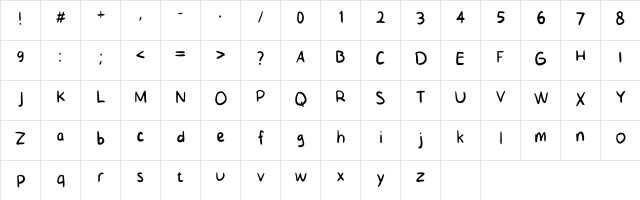
Kids Handwriting Regular
Design Context for Kids Handwriting Typeface
Kids Handwriting has an approachable, lighthearted character — its loose, expressive forms are well-suited to children's content, casual branding, and fun-first design.
Well-suited to food and beverage brands with personality, educational materials, and fun-forward identities.
Font Pairing: Pairs well with a rounded or humanist sans for body copy, maintaining the friendly tone without relying on Kids Handwriting to carry extended reading.
Pro Tip: Use Kids Handwriting at larger display sizes where its expressive character can land. Pair with a clean, simple sans for body copy to maintain readability.